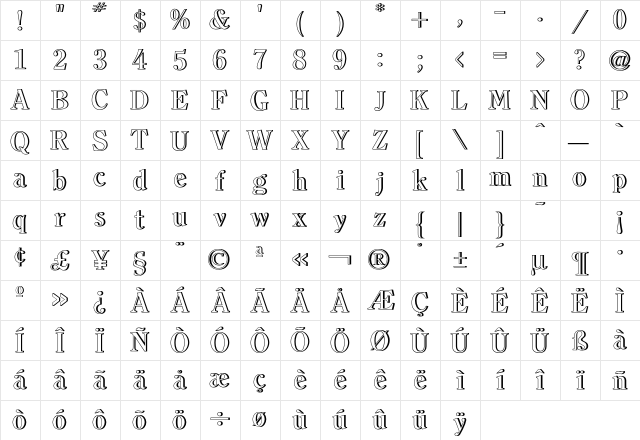
Clearface OutlineShadow
Style: OutlineShadow
Clearface Family
Clearface OutlineShadow
Design Context for Clearface
Clearface is built around its visual character rather than neutral utility - its distinctive forms are designed to make an impression at display sizes.
Font Pairing: Pair with a clean neutral sans-serif for body copy to let Clearface's character lead without overwhelming the composition.
Pro Tip: Use Clearface exclusively at display sizes - it was designed to be seen, not read at length. Let a neutral companion handle body copy.